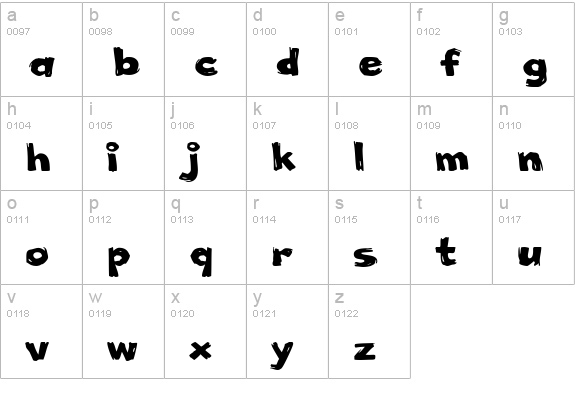
Little Piggy BTN Wide is a distinctive, extended-width variant in the Little typeface family \xE2\x80\x94 well suited to design and typography projects.
Little Piggy BTN Wide is a charming and playful font that exudes a sense of whimsy and cheerfulness. With its rounded edges and slightly quirky appearance, this font is perfect for adding a touch of fun to any design project. Whether you're creating invitations, posters, or greeting cards, Little Piggy BTN Wide is sure to bring a smile to your audience's face. The best part? Little Piggy BTN Wide is available for free download at FontsMarket.com. This means you can easily access this delightful font and start using it in your projects right away. Don't miss out on the opportunity to add a touch of cuteness to your designs with Little Piggy BTN Wide - download it for free today!